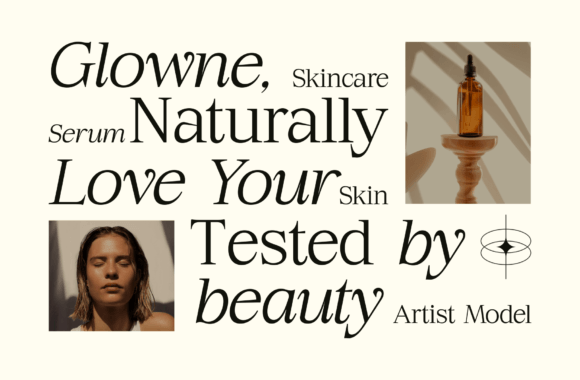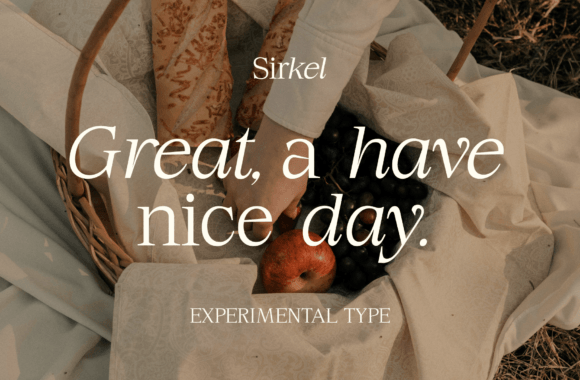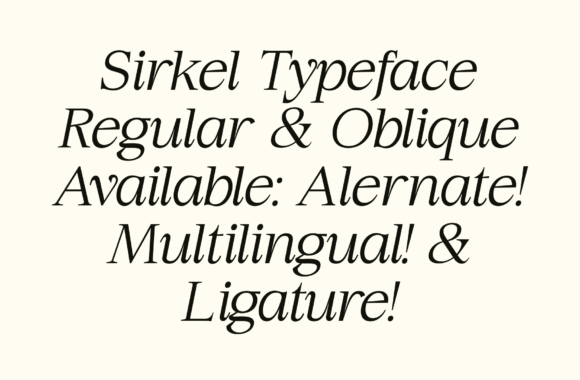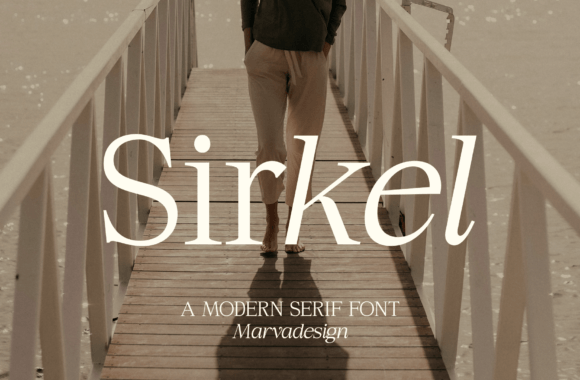
Introduction to Sirkel Font
Introducing **Sirkel** is a sophisticated typeface that embodies elegance and minimalism, available in both Regular and Italic styles.
Its clean, balanced lines offer a modern aesthetic, making it a versatile choice for a range of design applications The font’s graceful curves and geometric precision deliver a refined look, appealing to those who seek simplicity without compromising on style.